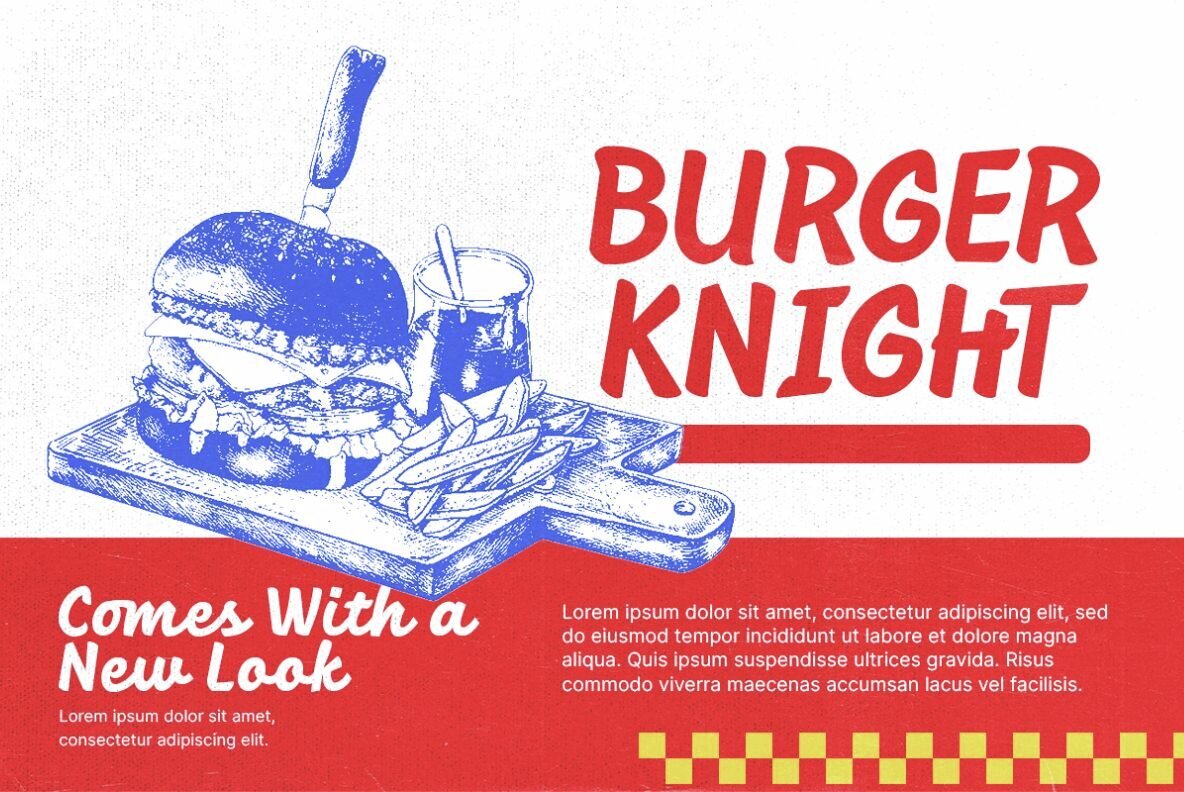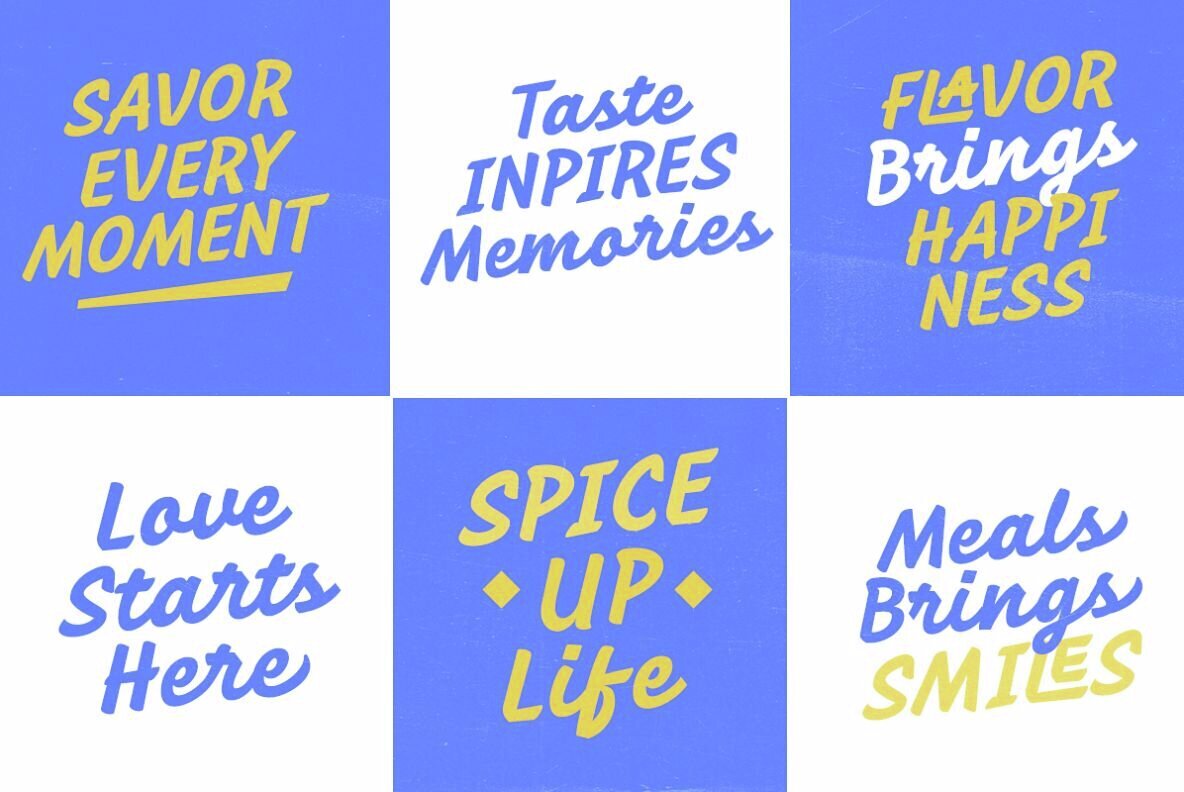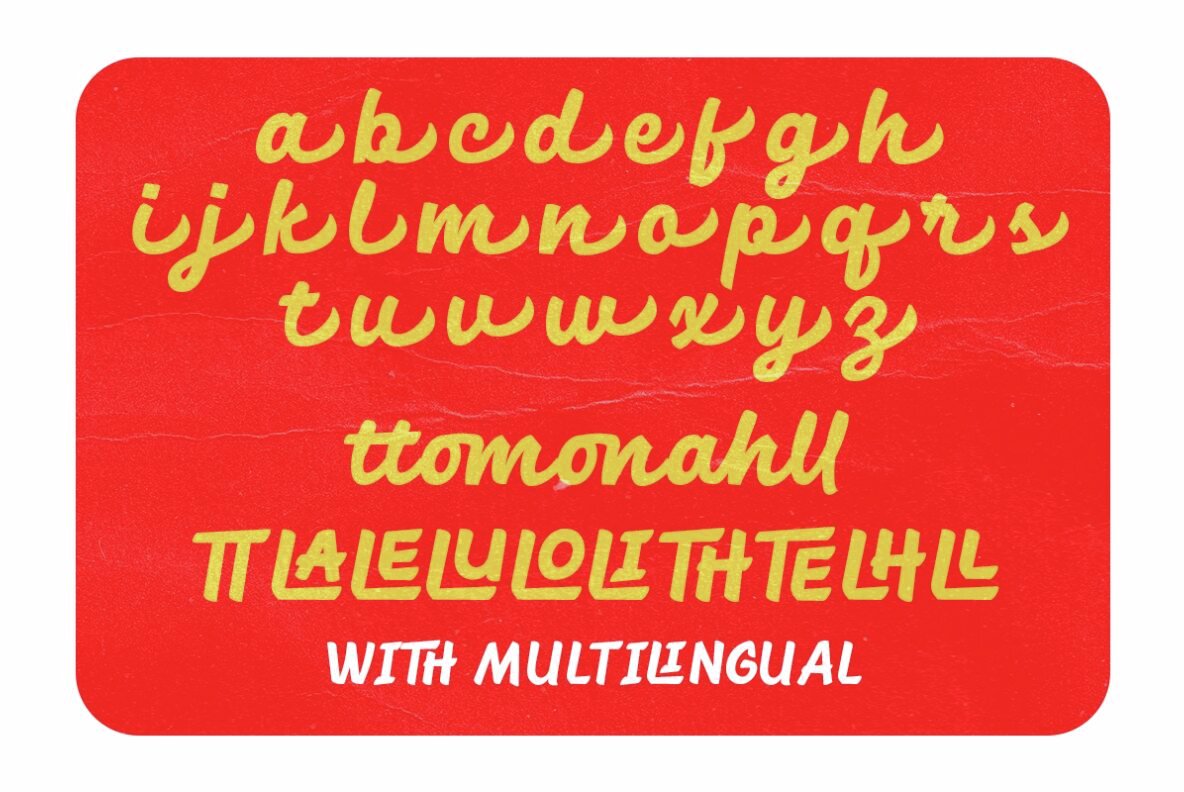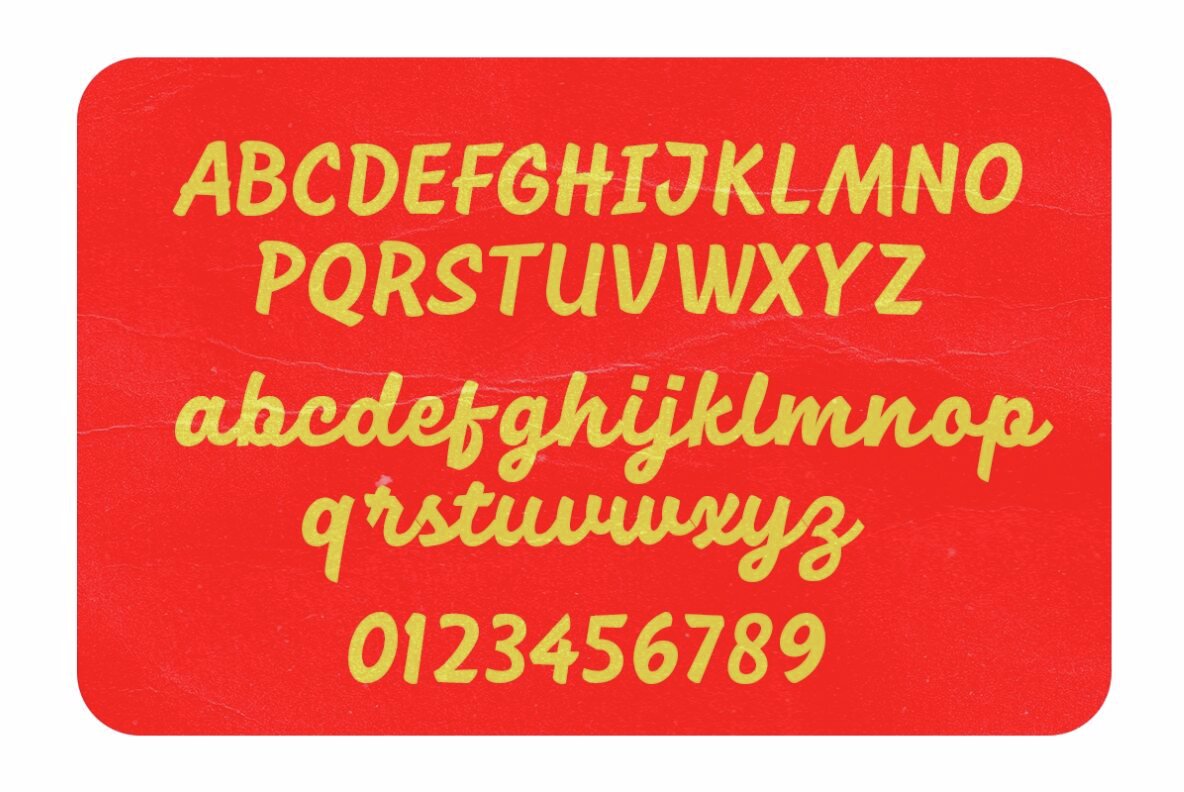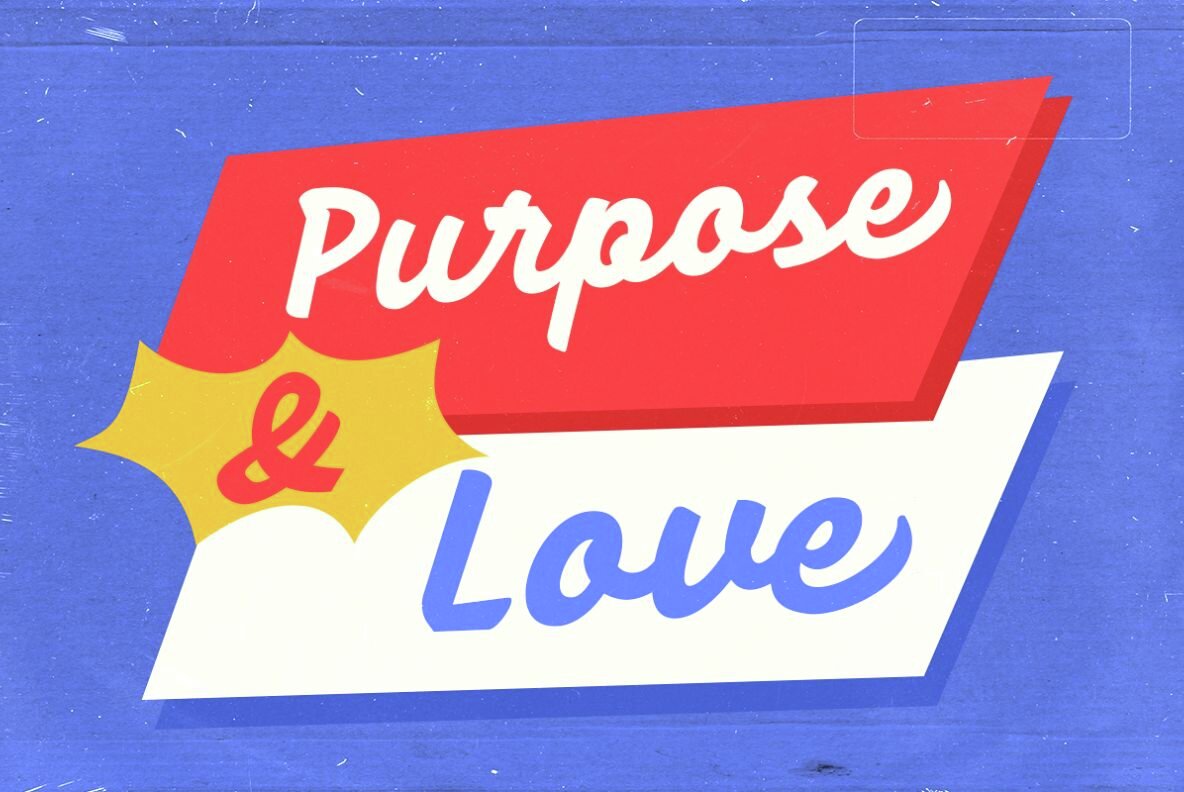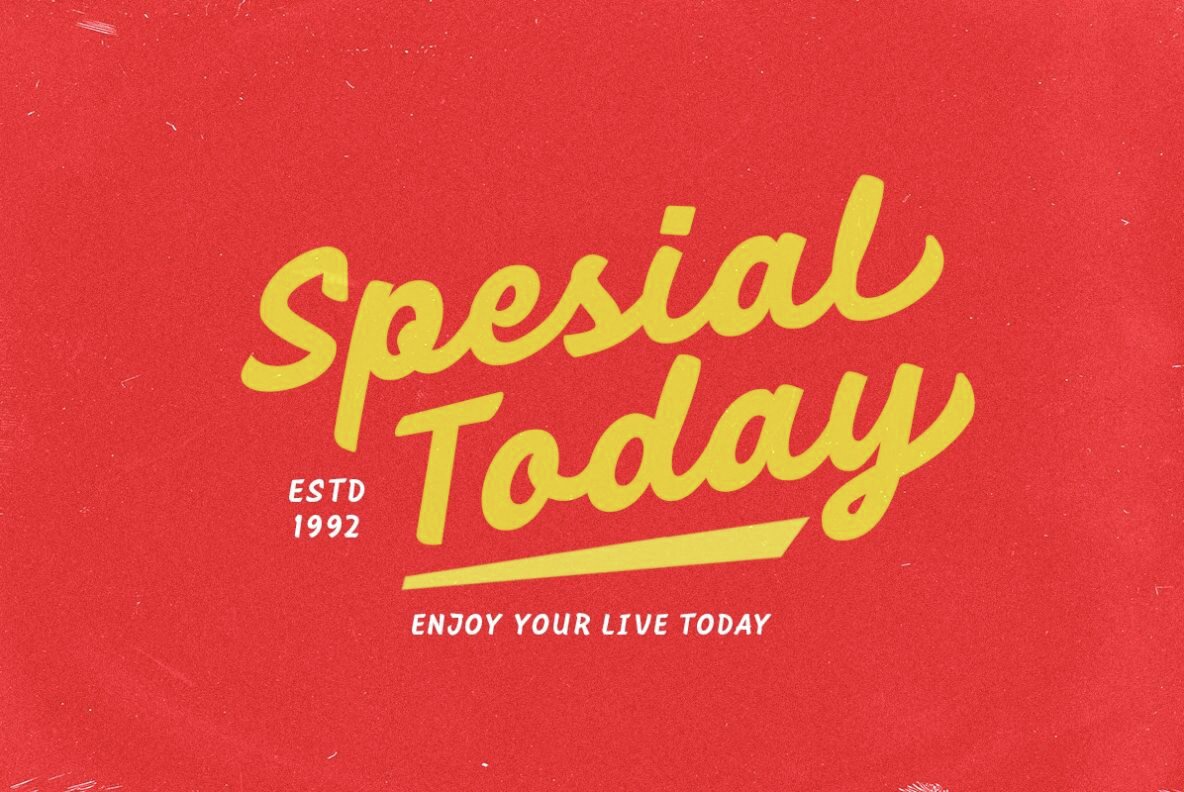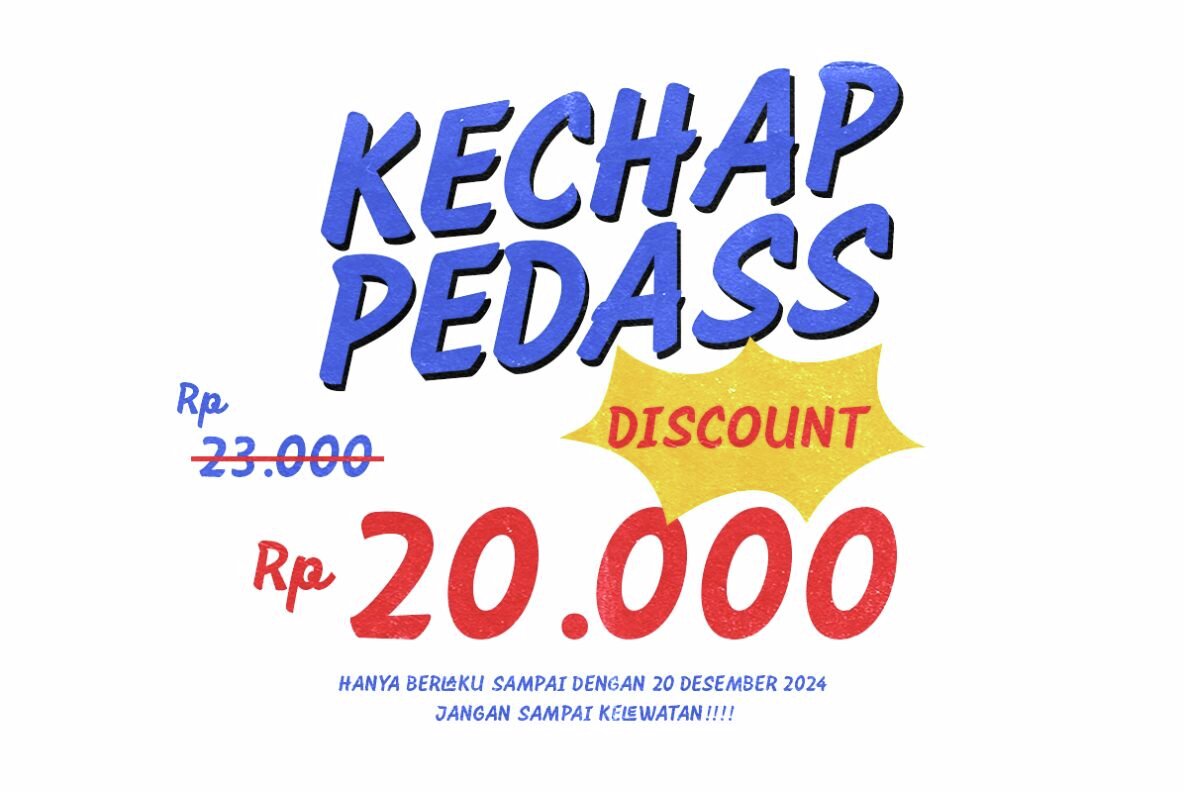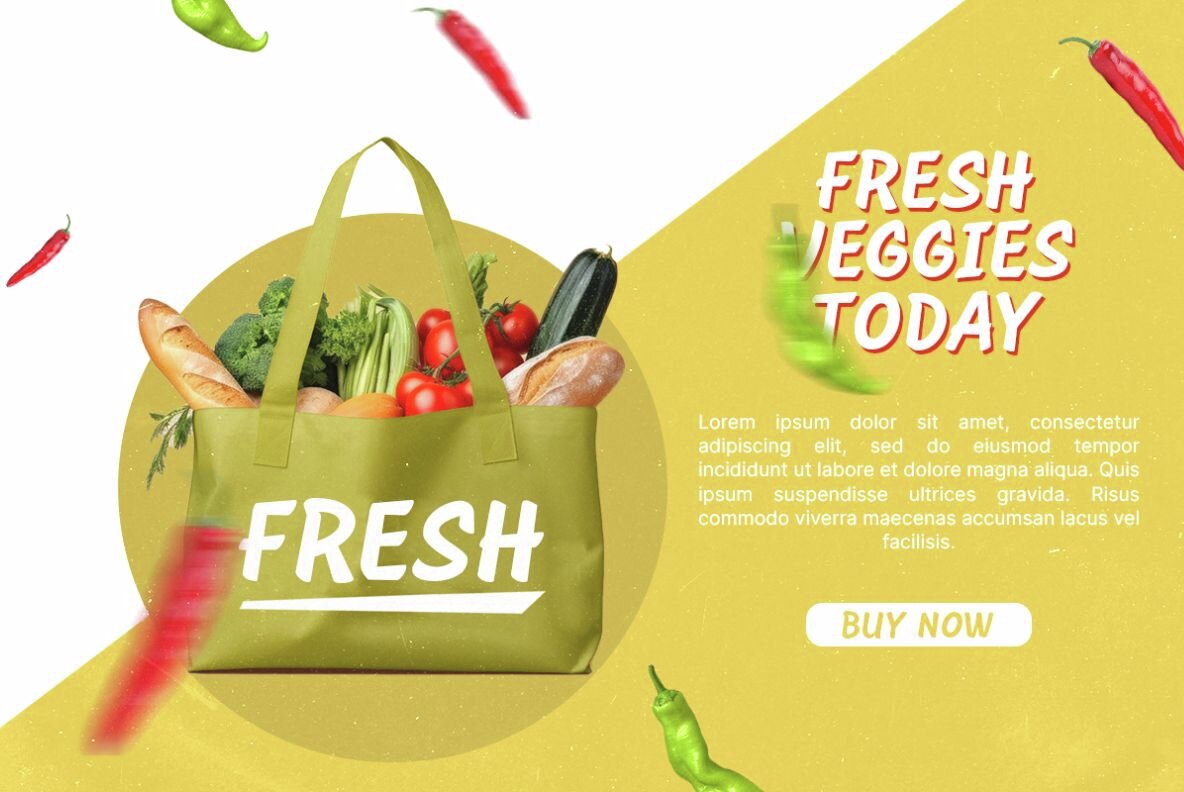
Sponder Font
Sponder Regular
Sponder is a sign painting font that captures the essence of retro and vintage styles, perfect for projects seeking a classic aesthetic. This font includes both uppercase and lowercase letters, allowing for versatile use in creating quotes and logotypes. With a variety of ligatures and alternates, your designs will stand out with an enhanced, stunning appearance. Ideal for any creative endeavor that aims to evoke a nostalgic feel.
Moreover, Sponder offers multilingual support, making it suitable for a wide audience and diverse projects. Its distinctive style and functionality make it a great choice for designers aiming to infuse their work with a blend of tradition and artistic flair.